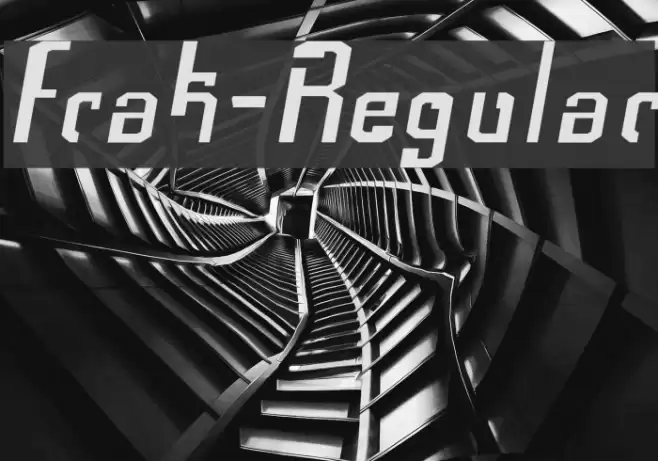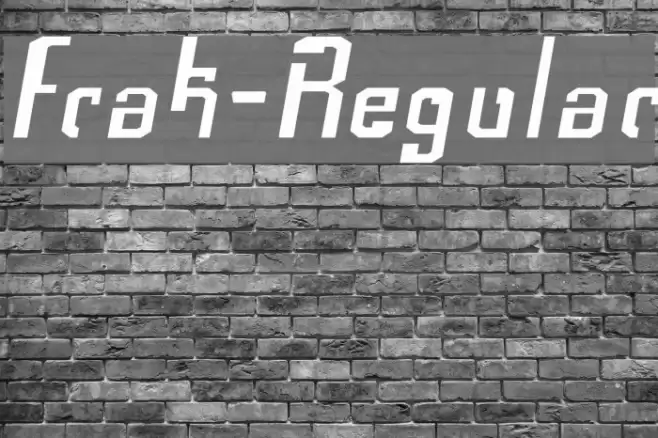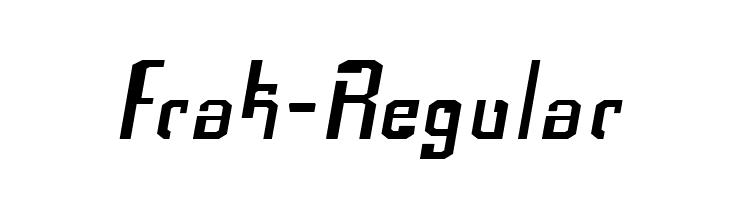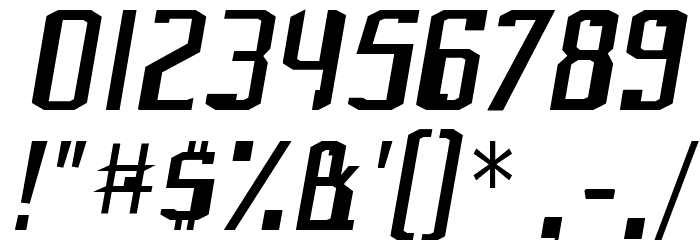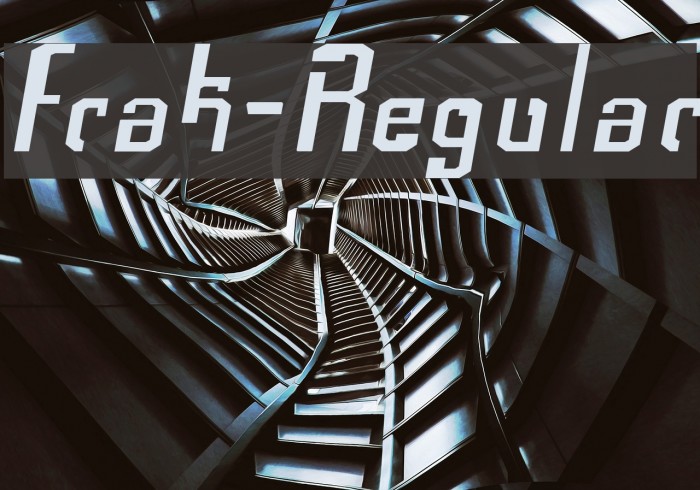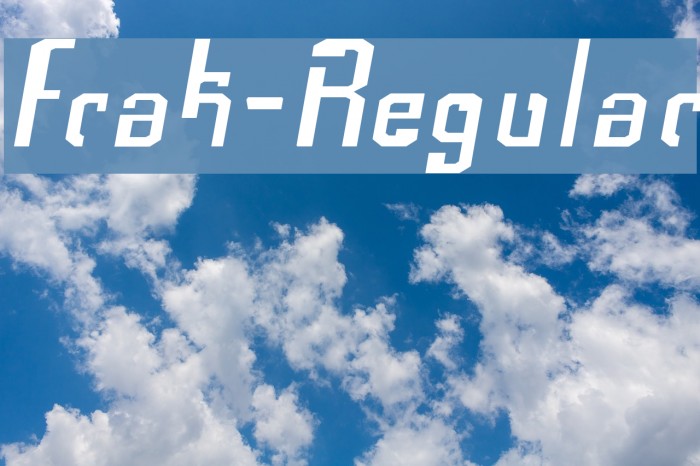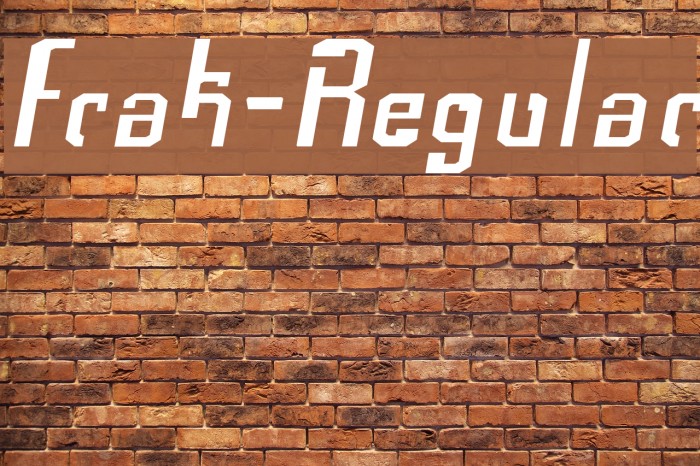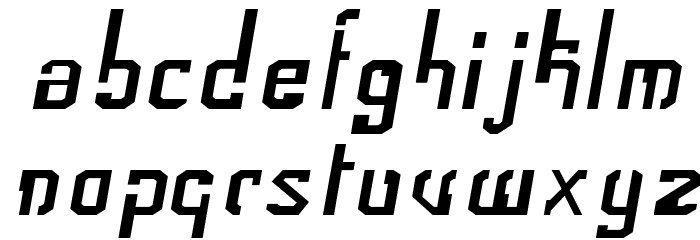
Frak-Regular Font
Frak-Regular Description
This font exhibits a bold and angular design, characterized by its sharp edges and geometric forms. The uppercase letters are particularly striking, with a futuristic and dynamic appearance that suggests movement. The lowercase letters maintain this angular style, providing a cohesive look across the typeface. The numerals are equally bold, ensuring readability while maintaining the font's unique aesthetic. Special characters are designed to complement the overall style, adding versatility for various uses. The font's distinctiveness makes it suitable for projects that require a modern and edgy feel.
A bold, angular font with a futuristic and dynamic style from Uncategorized fonts.
- Proposed Projects: Ideal for branding, posters, video game graphics, and futuristic-themed designs.